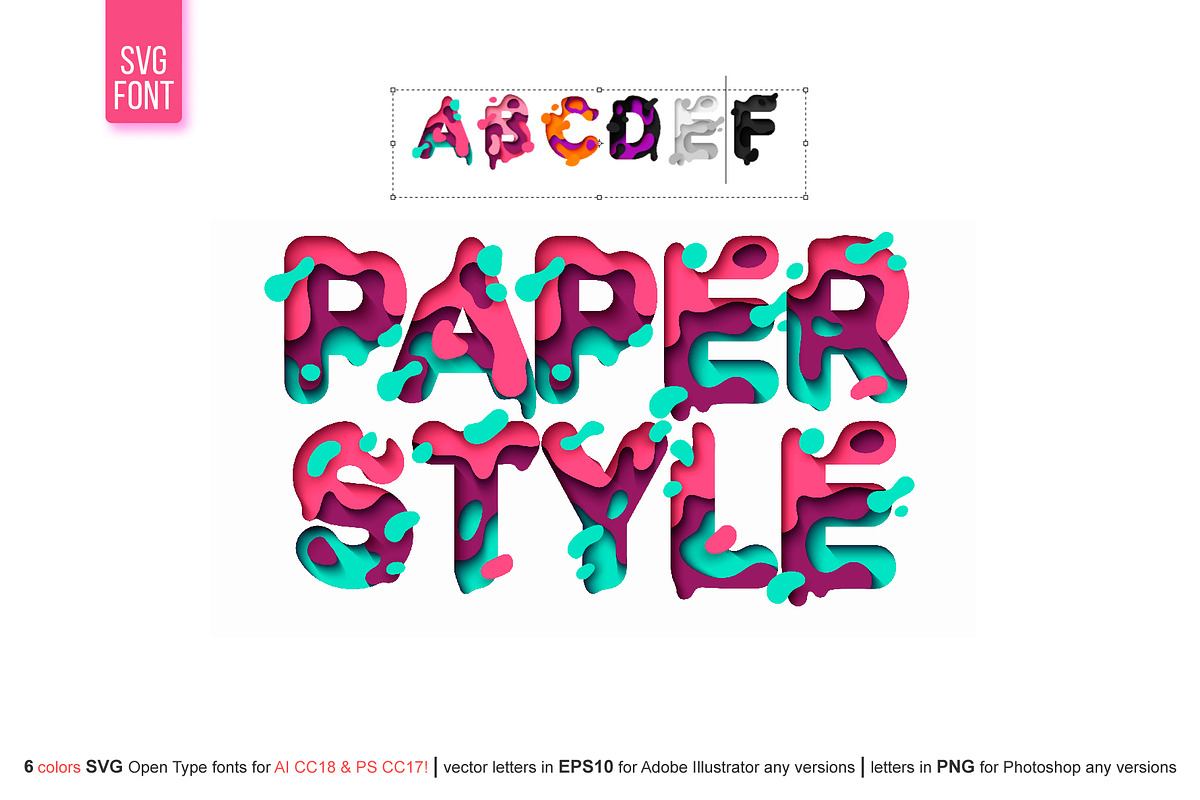
Paper Style OTF-SVG Font Free Download is a unique and textured typeface designed to mimic the look and feel of real cut-out paper. With its handcrafted appearance, high-resolution detail, and playful charm, this font is perfect for scrapbooking, kids’ designs, greeting cards, DIY projects, branding, and creative social media posts.
As an OTF-SVG font, it supports rich color and texture directly in your design software, delivering a realistic, layered paper effect without extra effort. Each letter looks like it was snipped and placed by hand—giving your projects a personal, tactile touch.